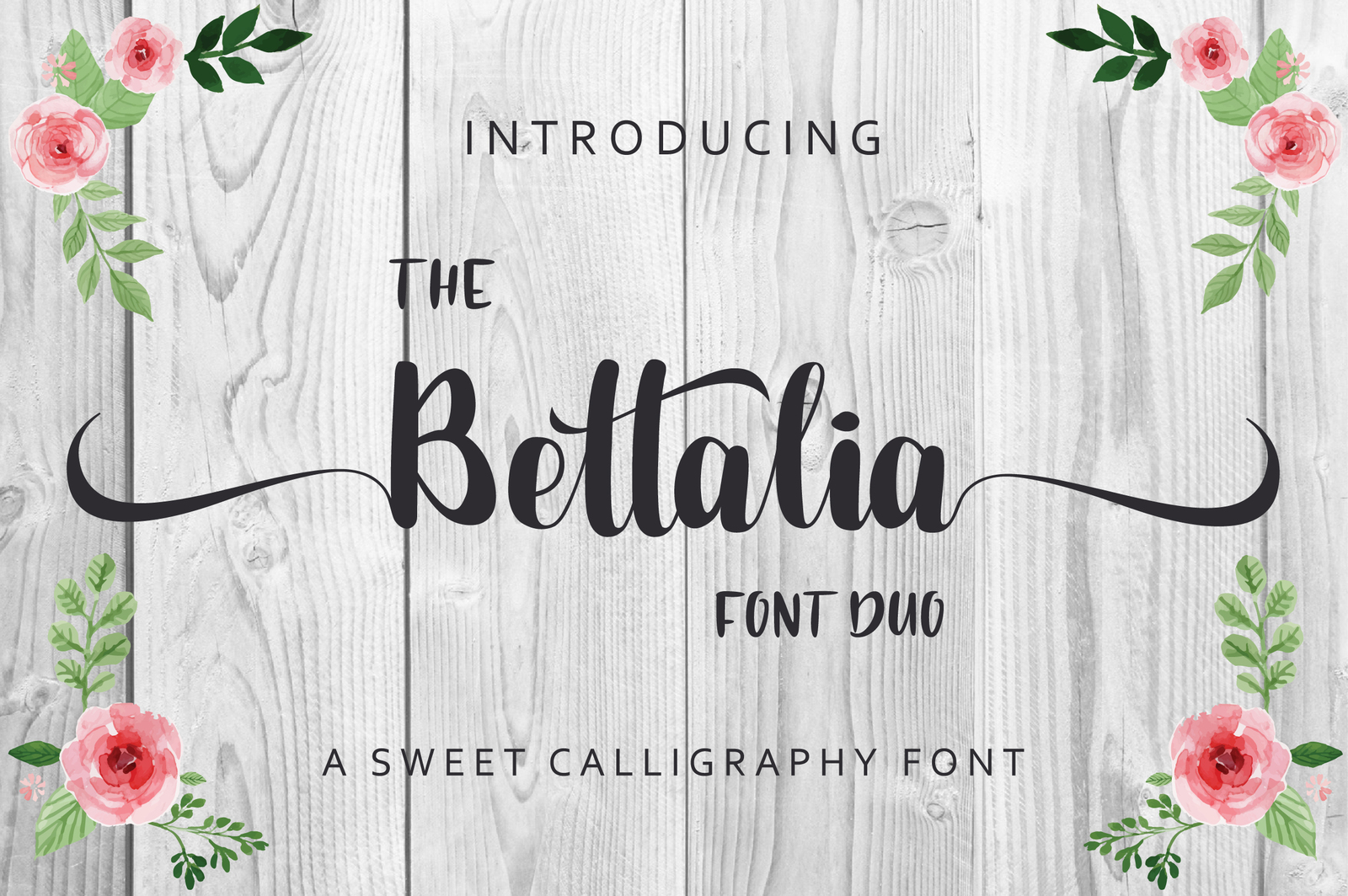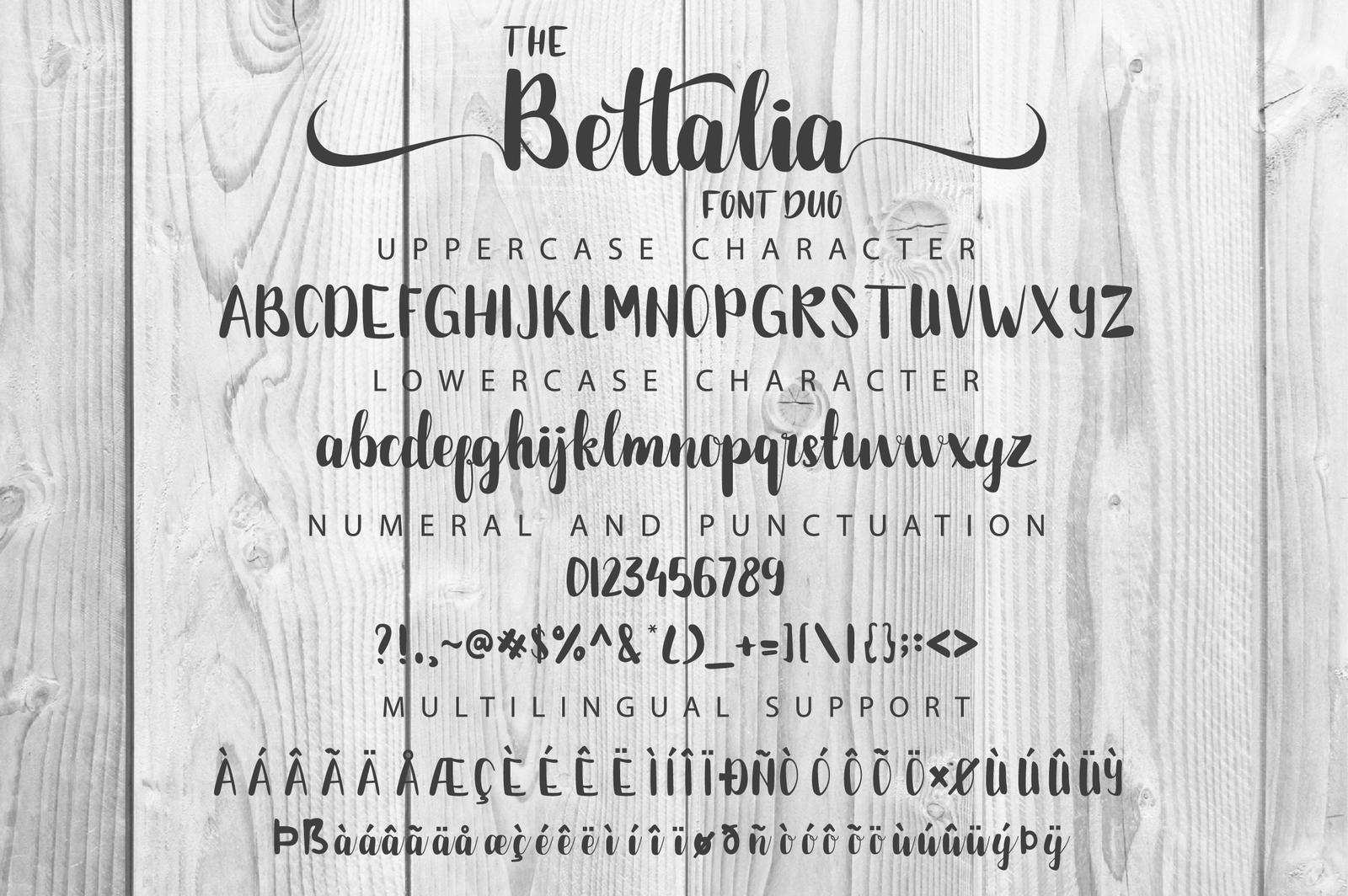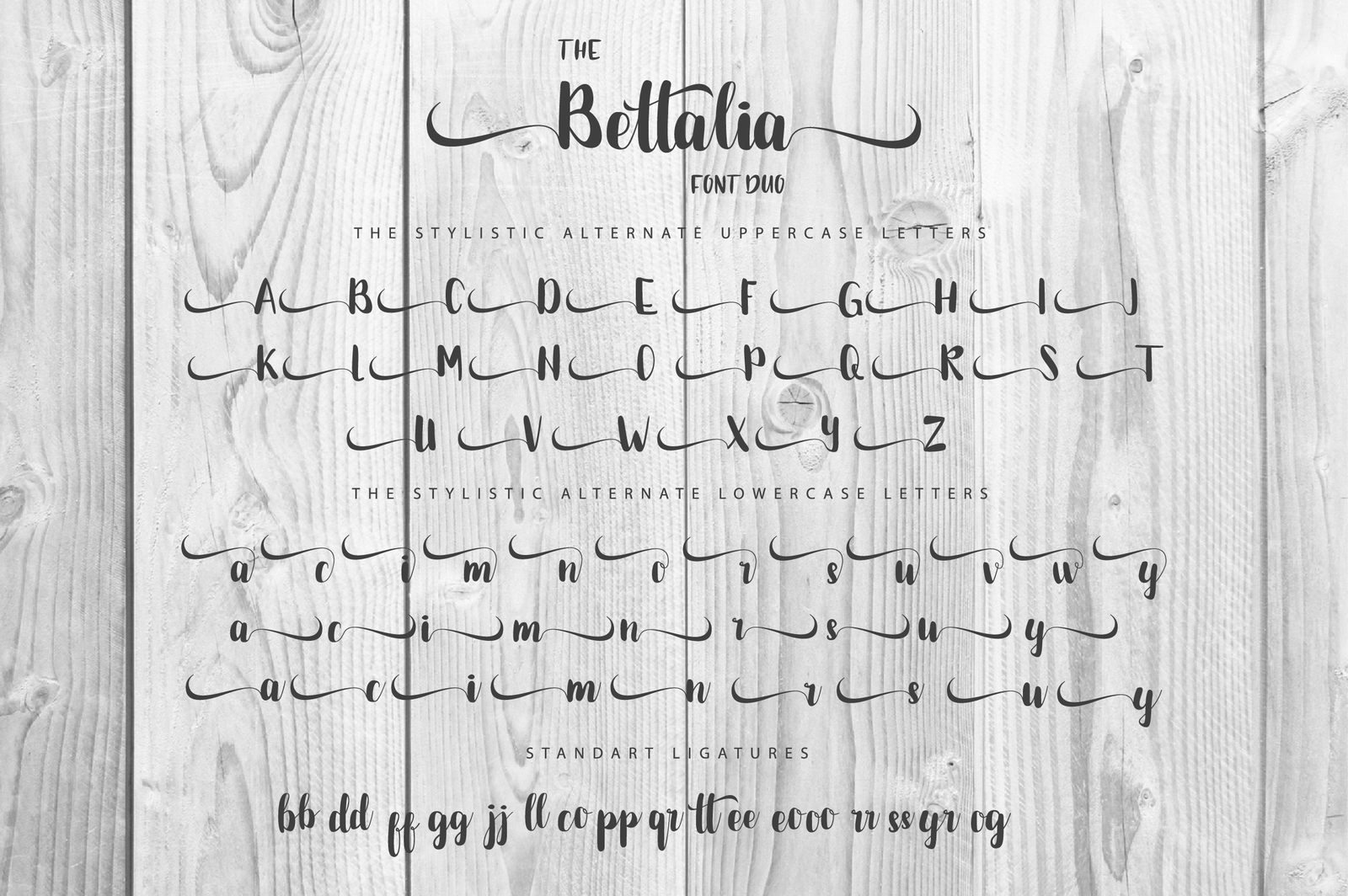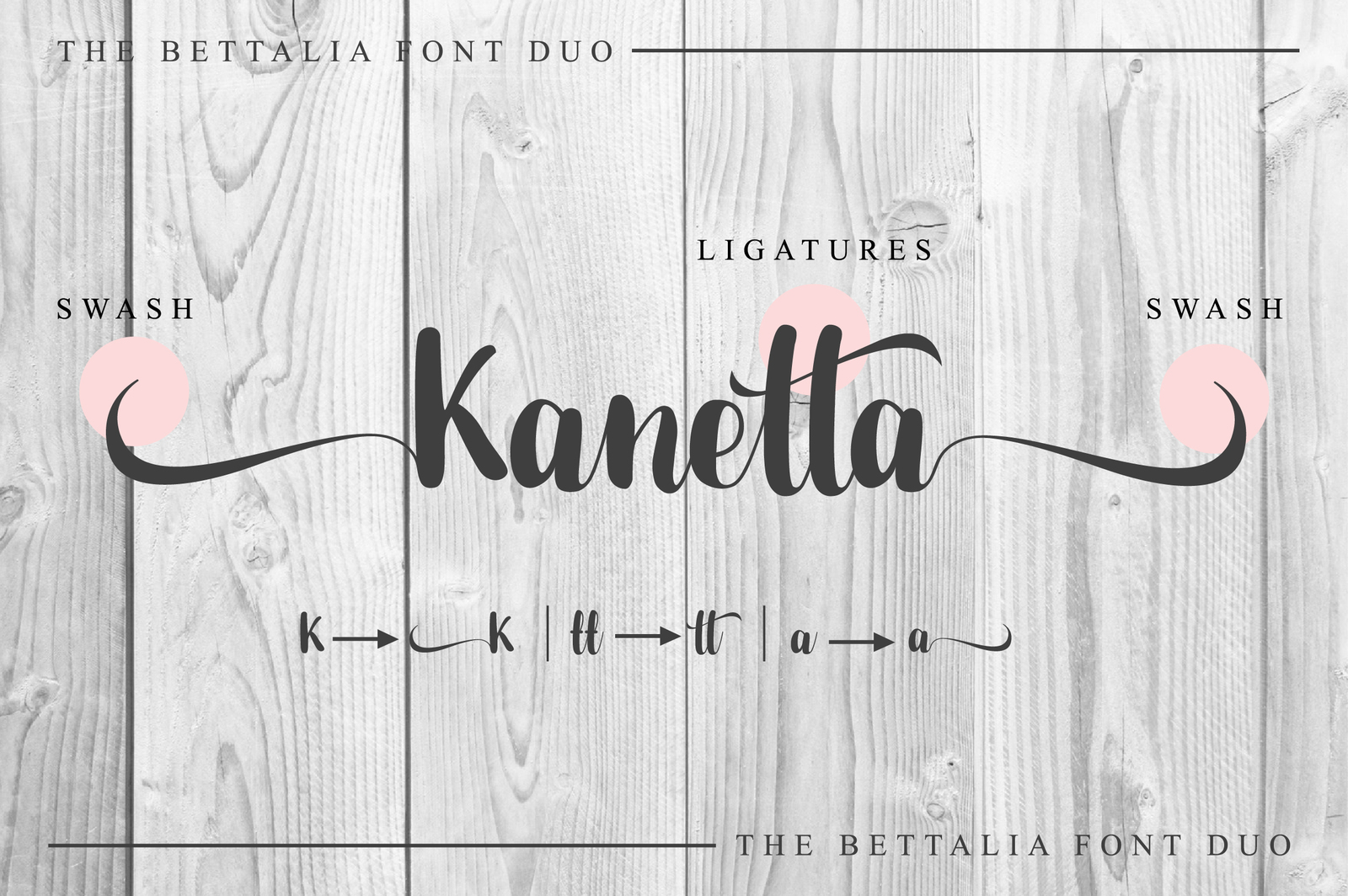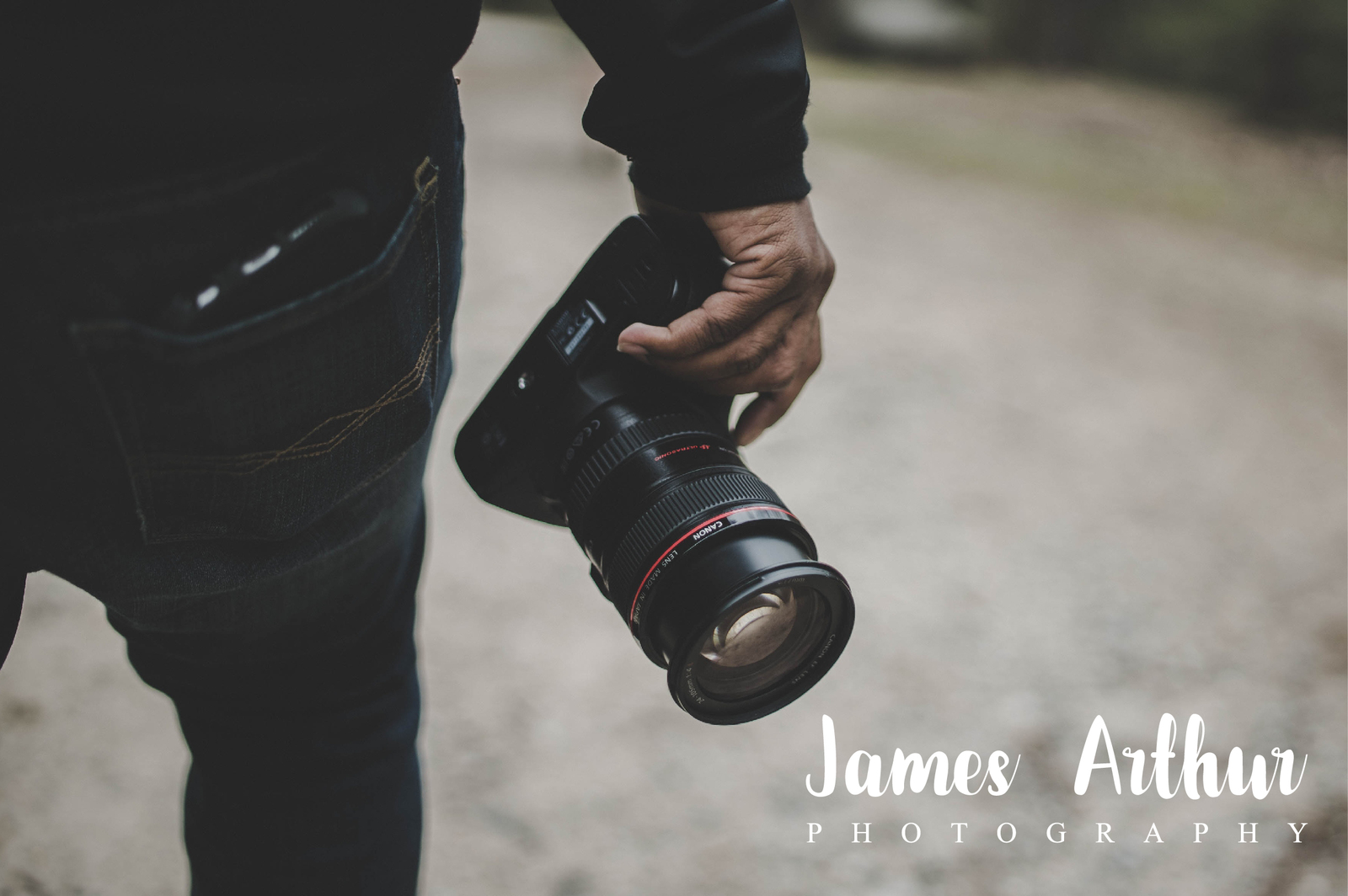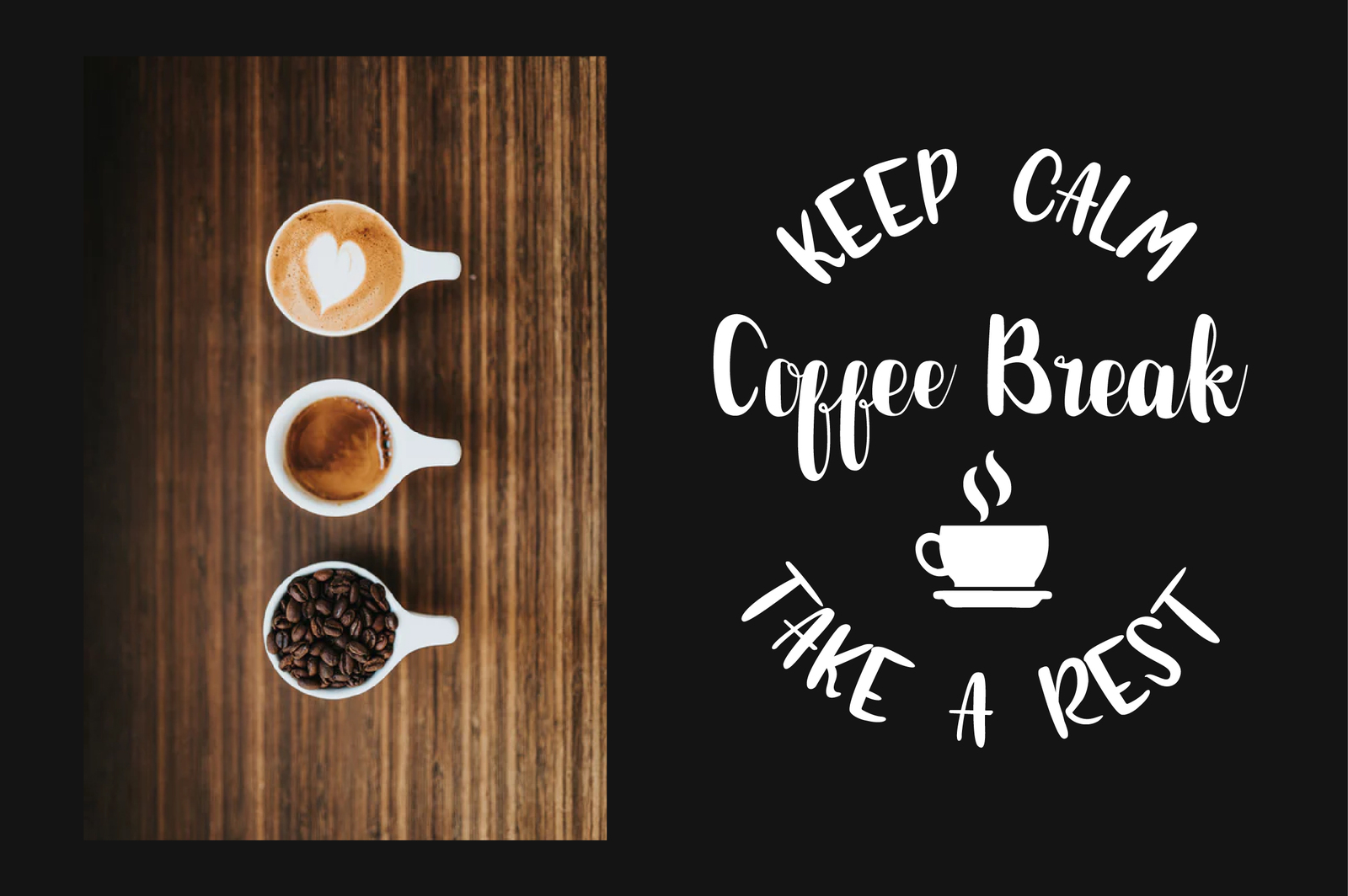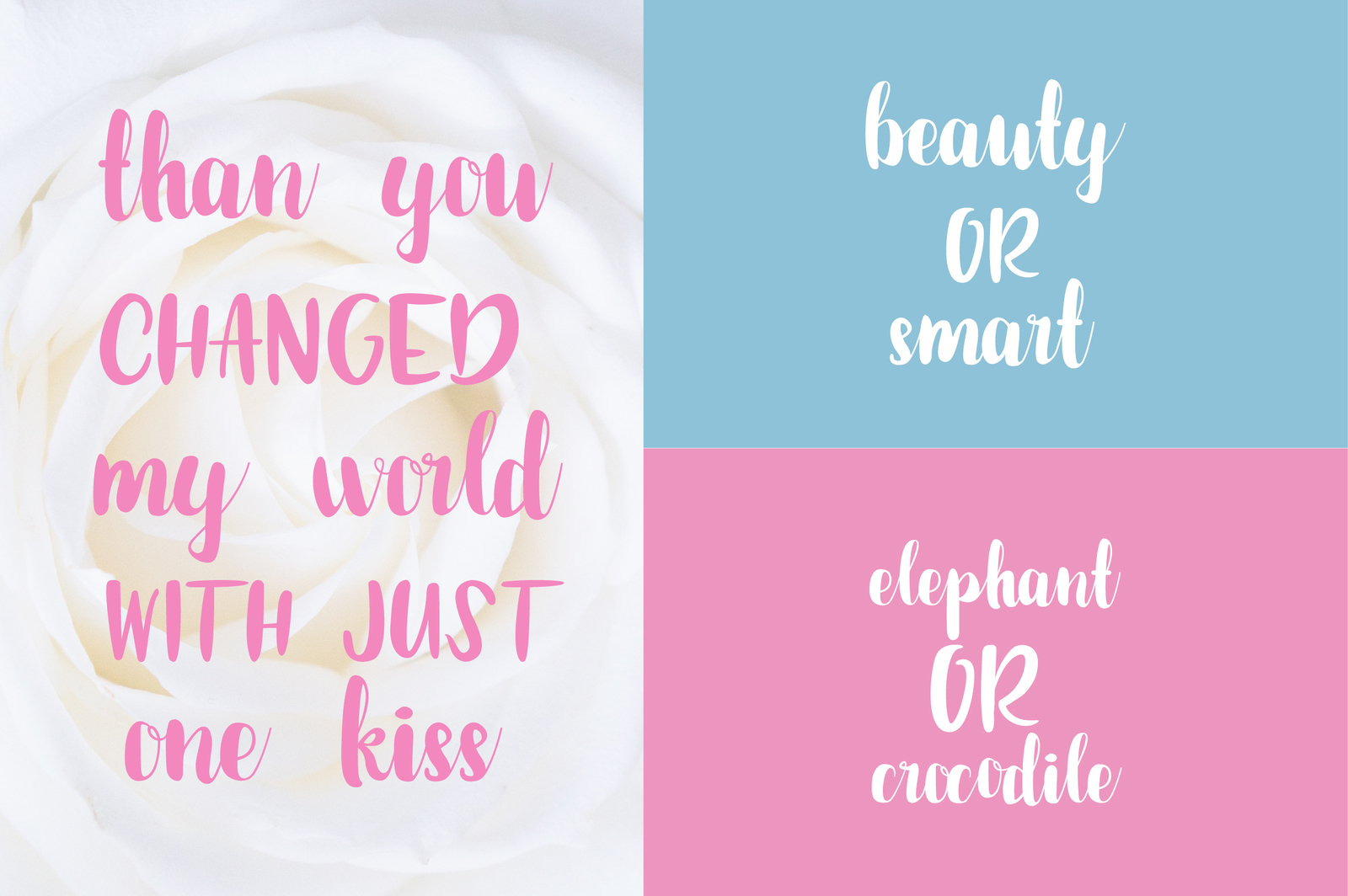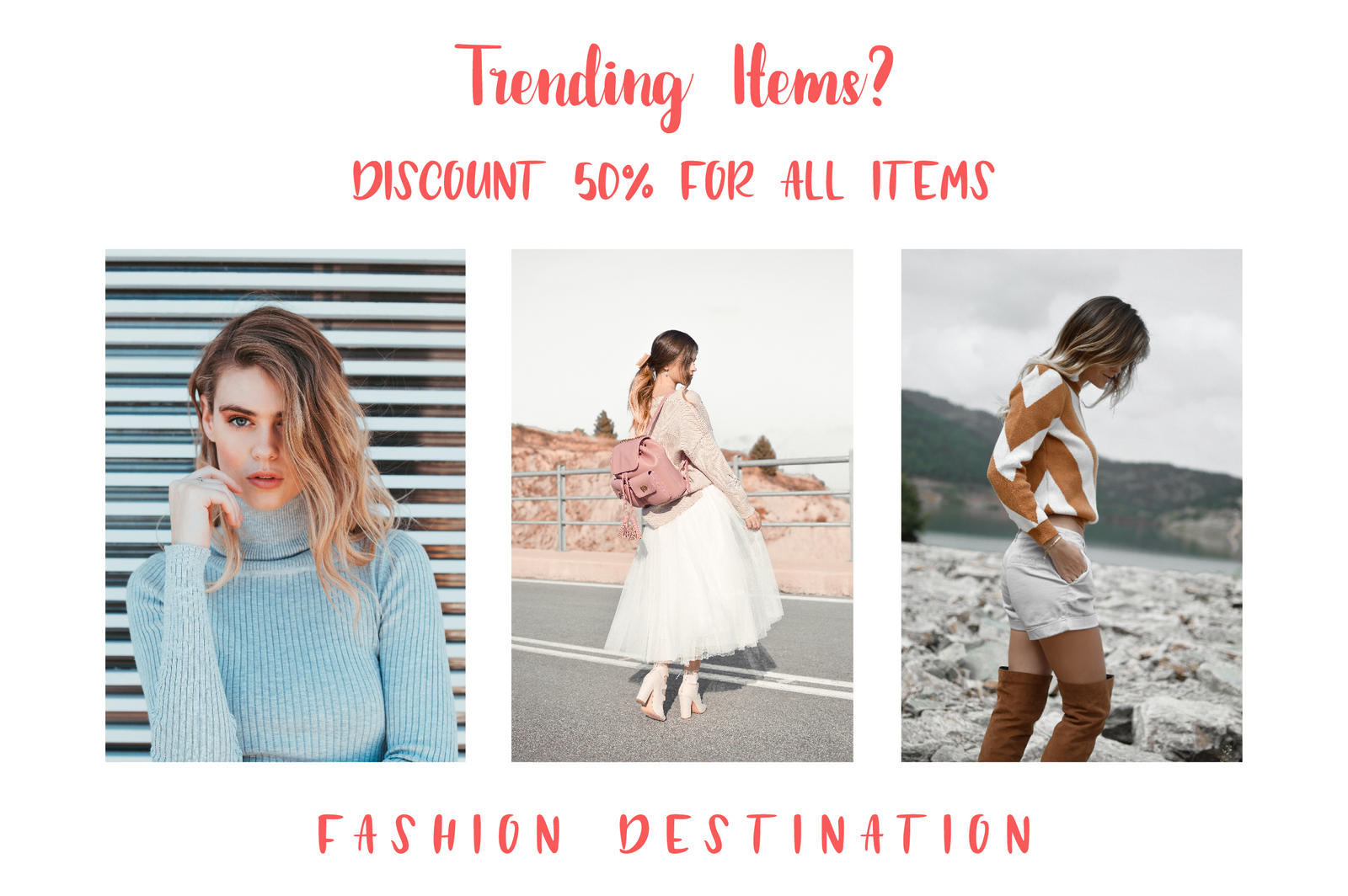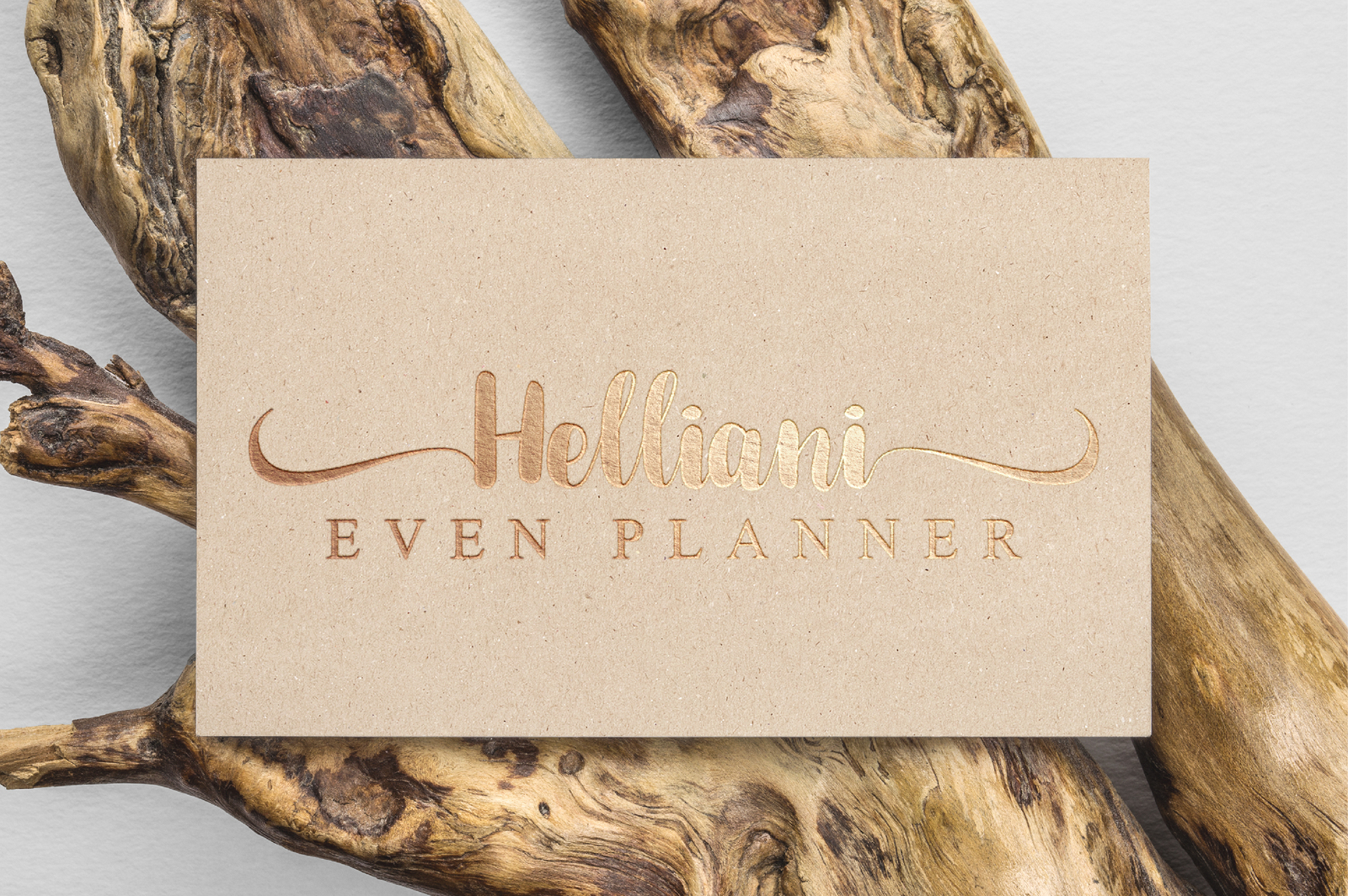
The Bettalia Font Duo
Introducing The Bettalia Font Duo, a stylish Font Style. This beautiful script font offers your personal touch to your latest art project with elegant, classy and modern look.
The Bettalia Font Duo offers gorgeous typographic will perfect for many different project such as logos & branding, invitation, stationery, wedding designs, social media posts, advertisements, product packaging, product designs, label, photography, watermark, special events or anything that need handwriting taste.